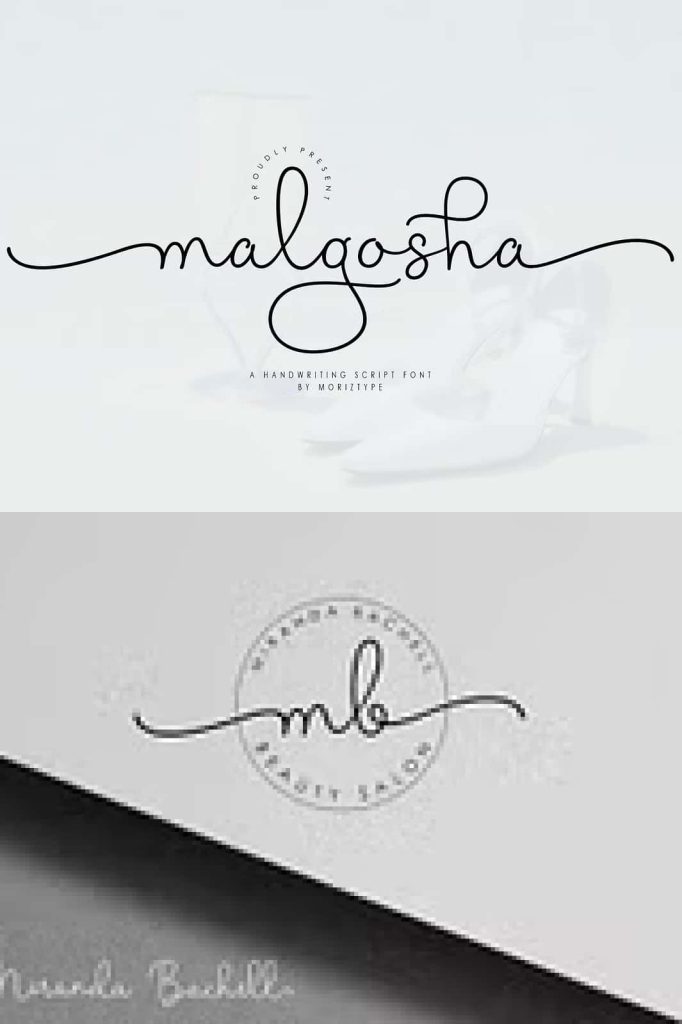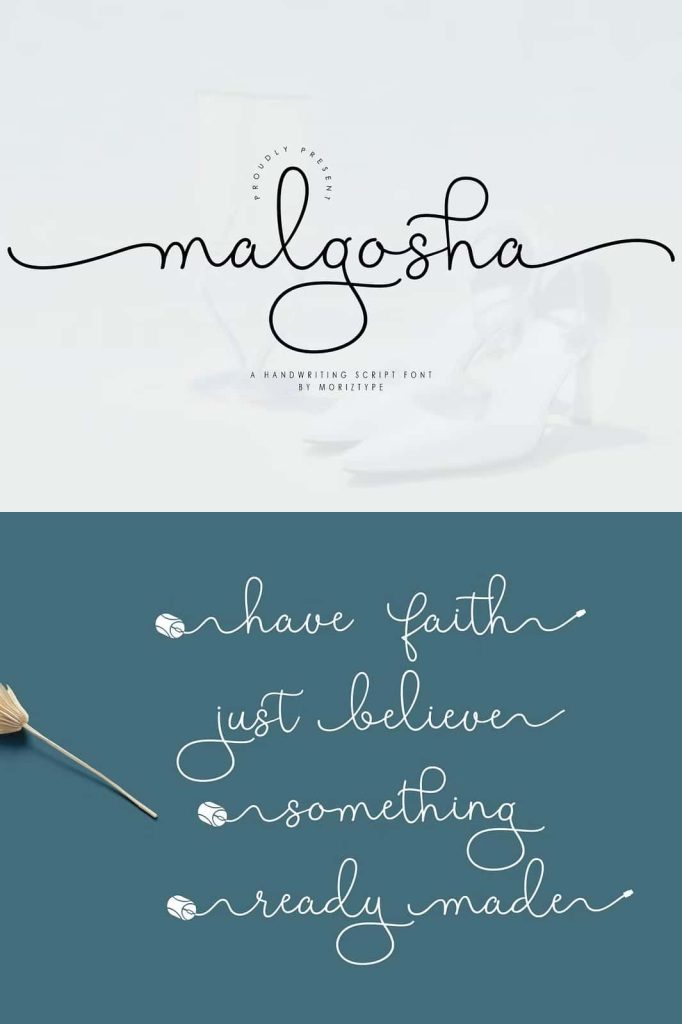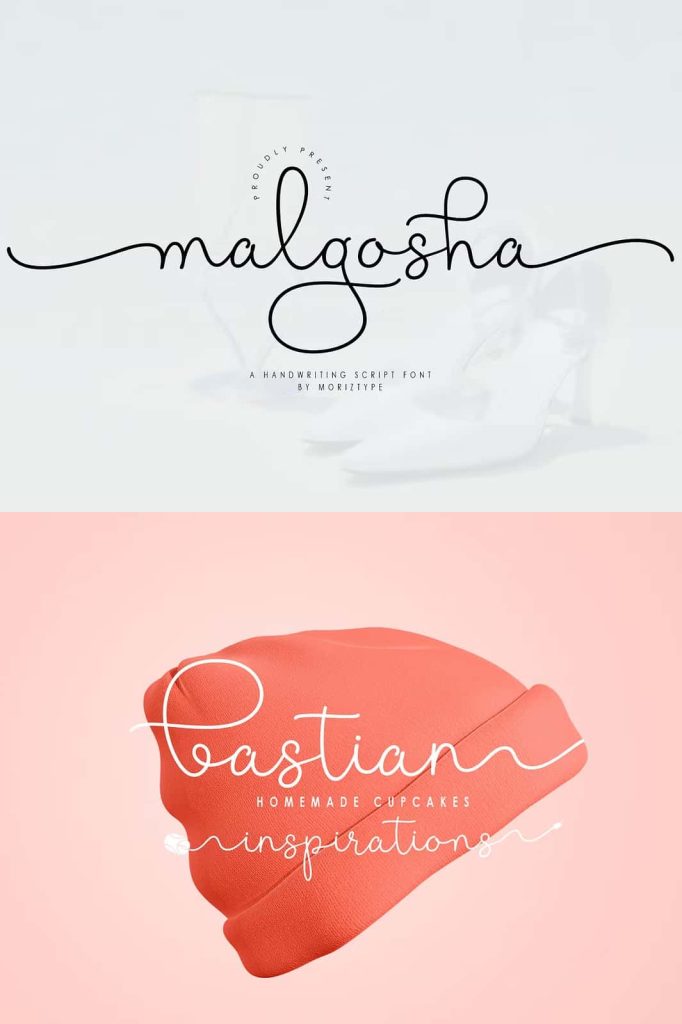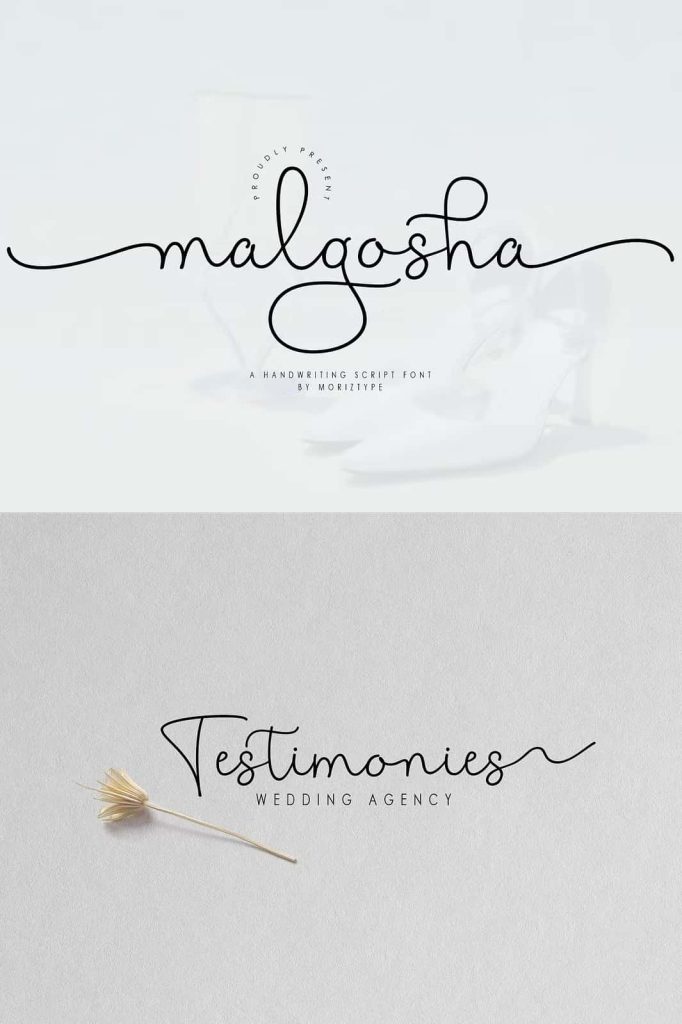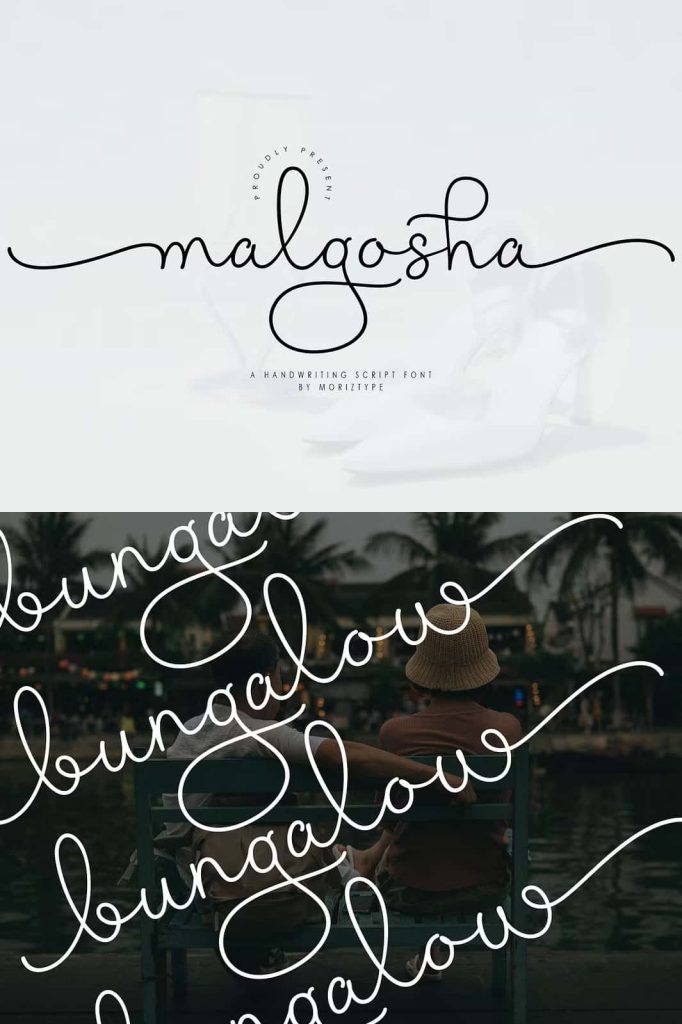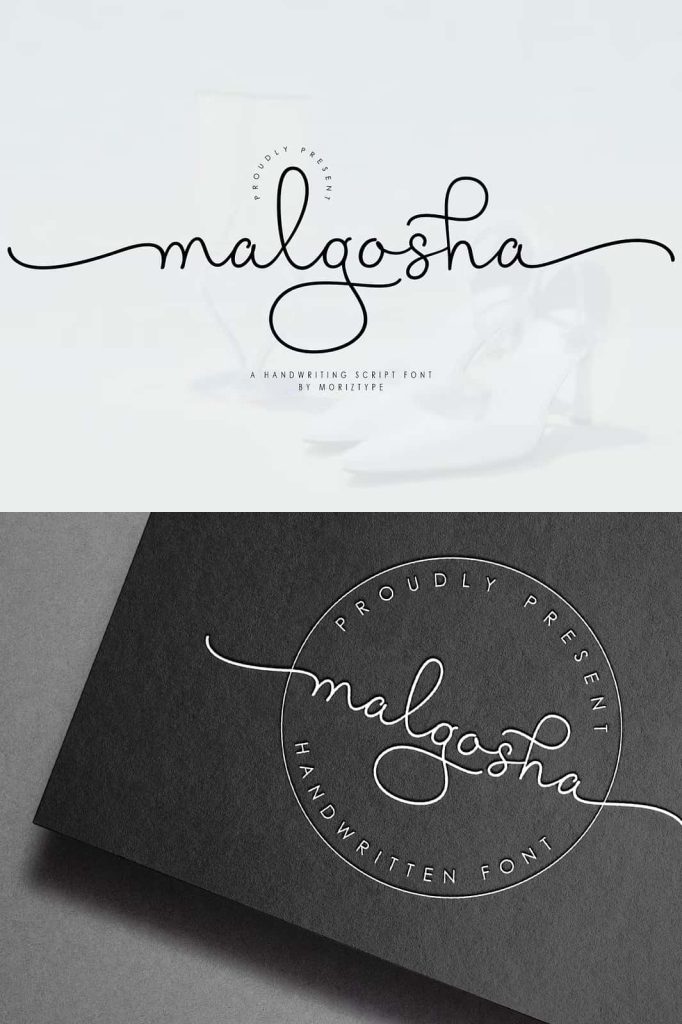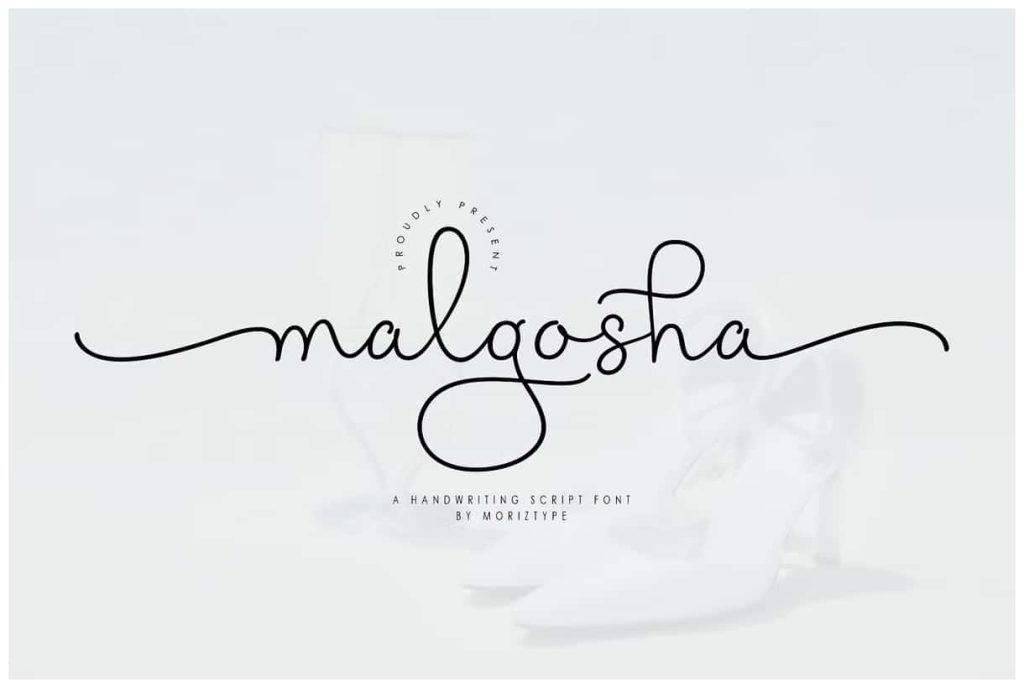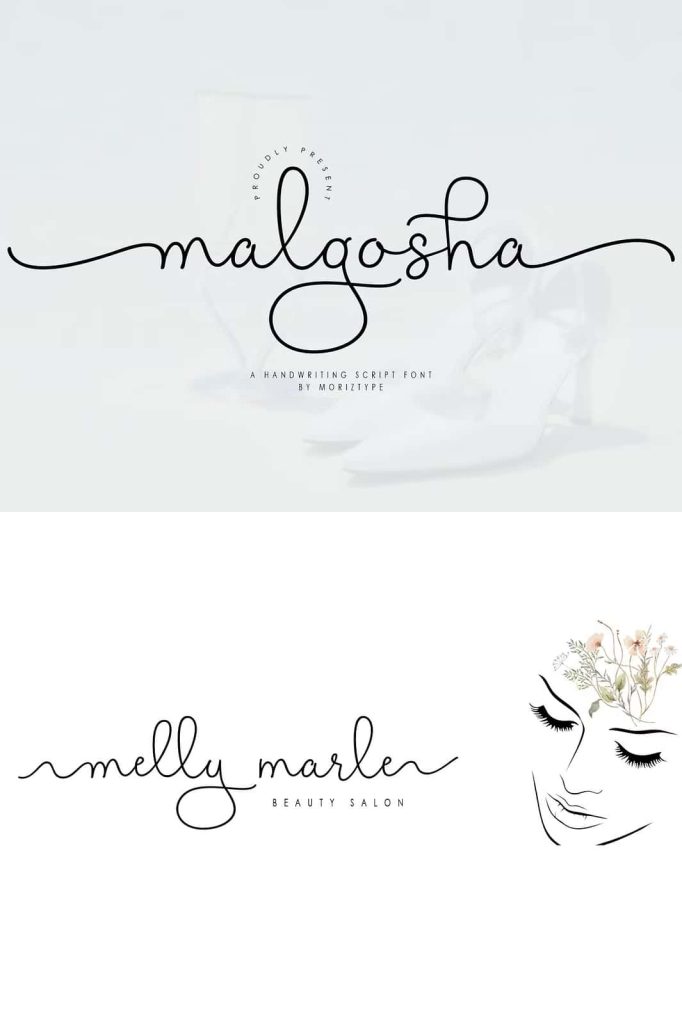
Introducing malgosha, handwriting script font perfect for wedding stationery, elegant handwritten logos and branding, websites, social media quotes, and more!